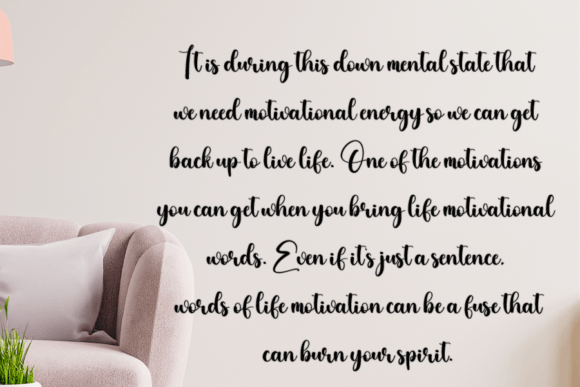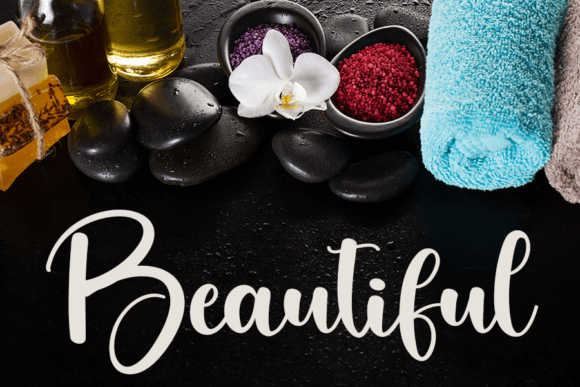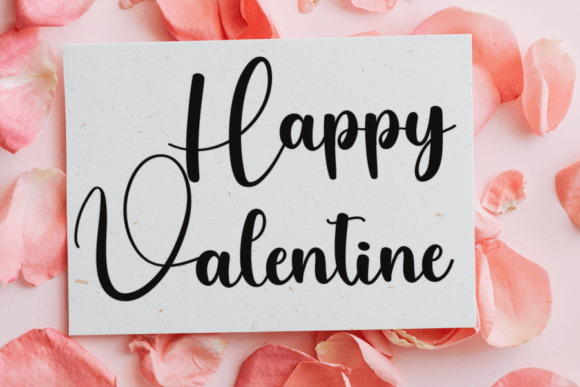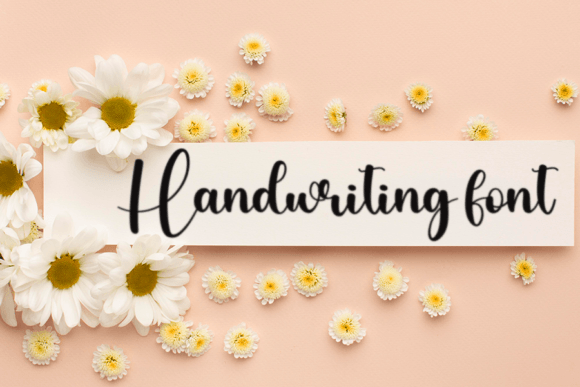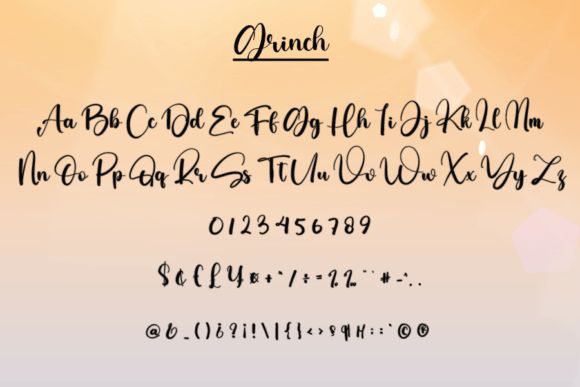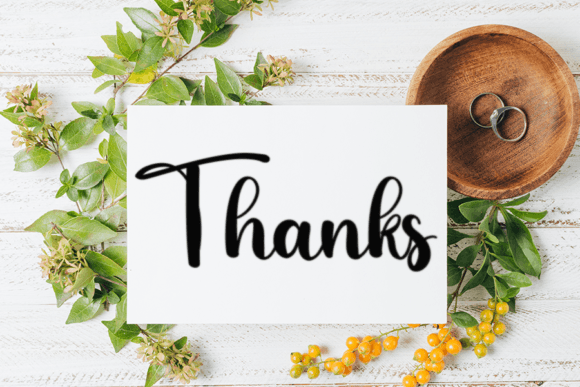
Introducing Grinch Font: A Timeless Classic with a Modern Twist
Are you tired of using the same old fonts in your design projects? Look no further than Grinch Font, a stylish handwritten font that brings a touch of classic elegance to your work. Inspired by timeless calligraphy, Grinch Font is a contemporary and impeccably formed font that is sure to elevate your designs to the next level.
The Story Behind Grinch Font
Grinch Font is a carefully crafted font that draws inspiration from traditional calligraphy. The result is a balanced and varied font that exudes a sense of sophistication and refinement. Whether you’re a designer, crafty DIY enthusiast, or simply someone who appreciates beautiful typography, Grinch Font is sure to captivate your audience.
Key Features of Grinch Font
- Handwritten style: Grinch Font boasts a beautiful, handwritten style that adds a personal touch to your designs.
- Contemporary atmosphere: With its modern and sleek design, Grinch Font is perfect for projects that require a fresh and contemporary look.
- Impeccable form: The font’s precise and elegant forms ensure that your text is always legible and visually appealing.
- Balanced and varied: Grinch Font features a range of characters and glyphs, allowing you to create unique and interesting text arrangements.
Grinch Font’s versatility makes it suitable for a wide range of design projects, including:
- Branding and logos: Create a lasting impression with a custom logo that showcases your brand’s personality.
- Wedding and event invitations: Add a touch of elegance to your special occasion invitations with Grinch Font.
- Social media graphics: Elevate your social media presence with eye-catching graphics that feature Grinch Font.
- Packaging and product design: Make your products stand out with beautifully designed labels and packaging.
Why Choose Grinch Font?
With so many fonts available, why choose Grinch Font? Here are just a few reasons:
- Unique and distinctive: Grinch Font’s classic yet modern design sets it apart from more generic fonts.
- Elegant and sophisticated: Add a touch of refinement to your designs with Grinch Font’s precise and elegant forms.
- Easy to read: The font’s clear and legible design ensures that your text is always easy to read.
Tips for Using Grinch Font
To get the most out of Grinch Font, here are a few tips:
- Experiment with different sizes: Grinch Font looks great in a variety of sizes, from large headings to smaller body text.
- Mix and match with other fonts: Combine Grinch Font with other fonts to create interesting and dynamic text arrangements.
- Pay attention to spacing: Make sure to leave enough space between lines and characters to ensure that your text is easy to read.
Grinch Font is a stylish and sophisticated font that is perfect for designers and crafters looking to add a touch of classic elegance to their projects. With its impeccable form, balanced and varied design, and contemporary atmosphere, Grinch Font is sure to elevate your designs to the next level. So why wait? Download Grinch Font today and start creating beautiful, eye-catching designs that will leave a lasting impression on your audience.